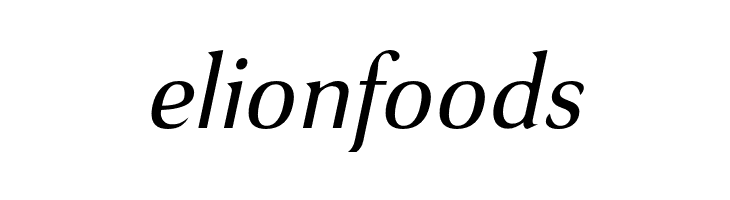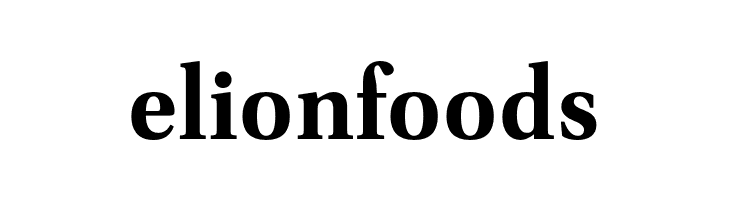
A classic serif typeface with balanced proportions and medium weight.
A bold, condensed serif font with strong, thick strokes and a modern twist.
Elegant serif font with an italic slant and moderate stroke contrast.
A bold serif font with strong strokes and classic detailing, perfect for impactful headlines.
An elegant italic font with smooth curves and moderate contrast.
A classic serif font with elegant, refined letterforms and sharp serifs.
A refined serif font with elegant, balanced proportions and a timeless quality.
A bold, classic serif typeface with strong strokes and pronounced serifs.
A bold, serif font with strong, authoritative strokes and classic design.
A bold, modern serif font with elegant proportions and excellent readability.